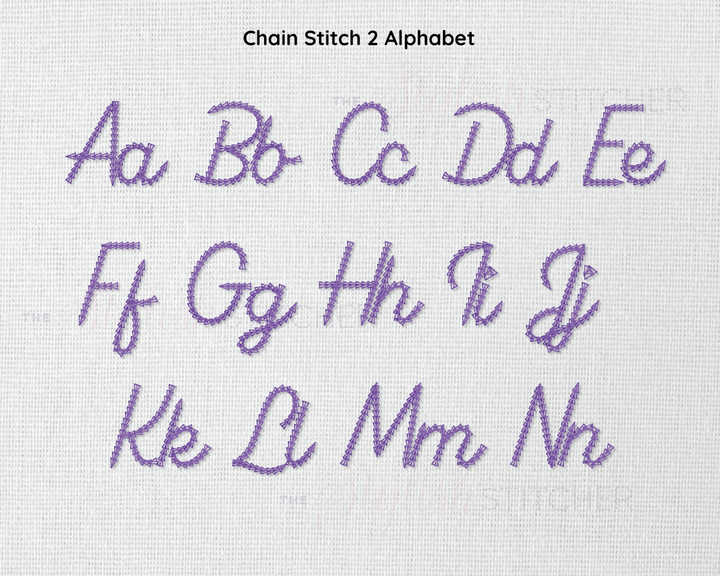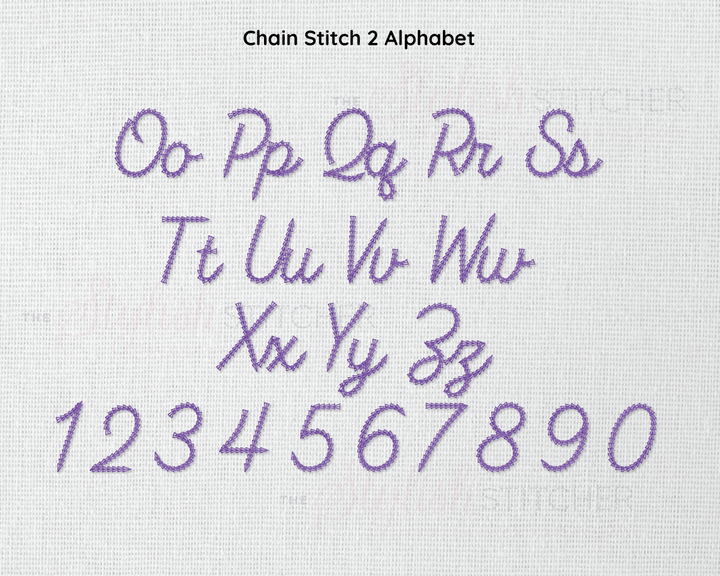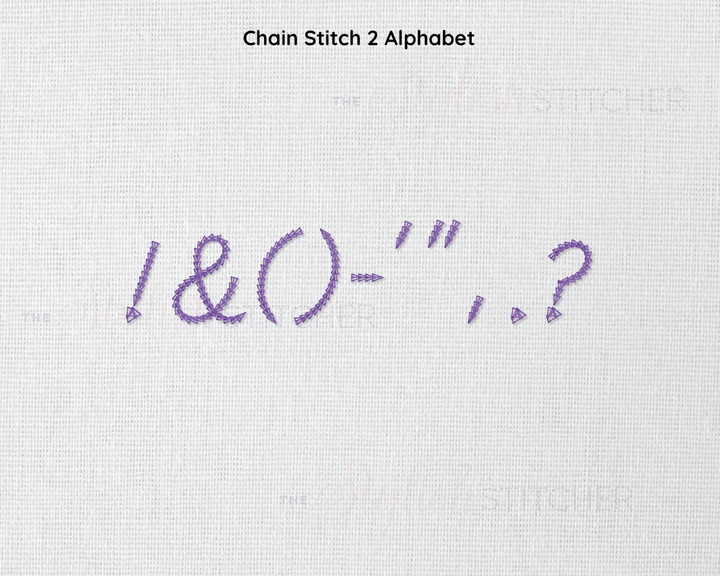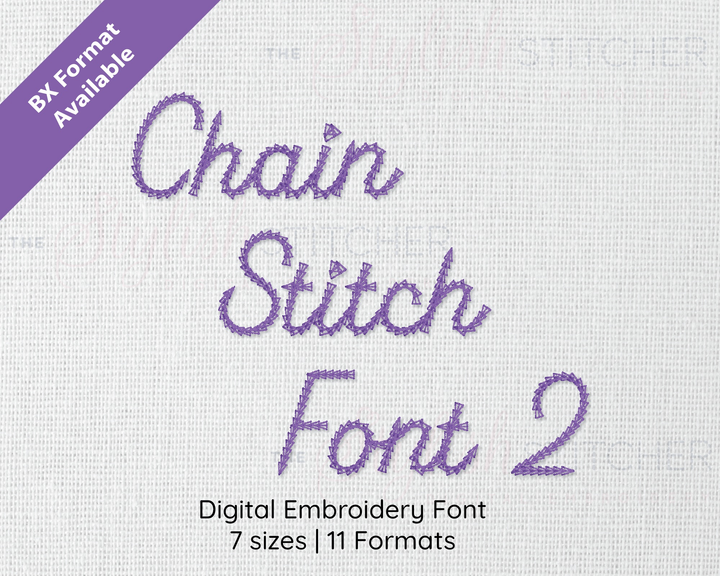
Chain Stitch Set 2 Embroidery Font
With its graceful curves, intricate loops, and intricate detailing, our newest addition to the Chain Stitch Font series, Chain Stitch Font Set 2, adds a touch of elegance and finesse to your designs. Each stitch is meticulously crafted to replicate the authentic look of hand embroidery, giving your creations a professional and artistic edge that is sure to impress.
Included: Upper/Lowercase Letters, Numbers, 10 punctuation
Stitch Type: Run Stitch